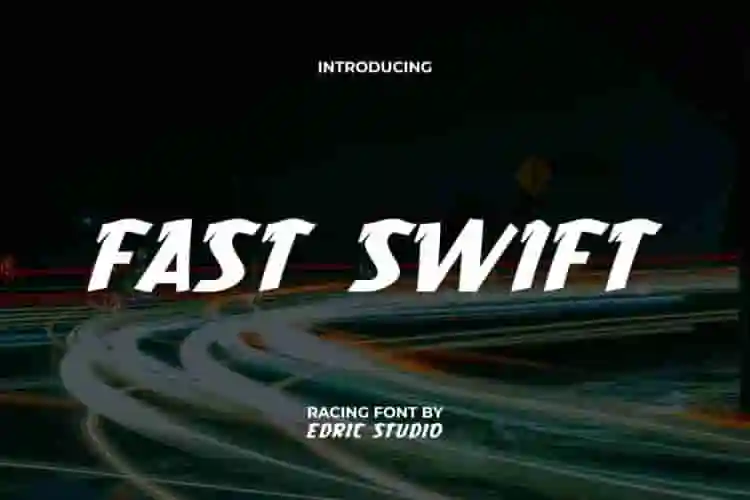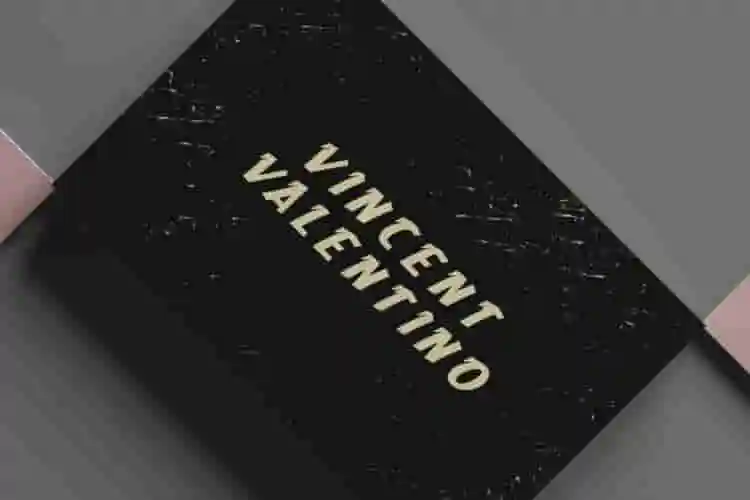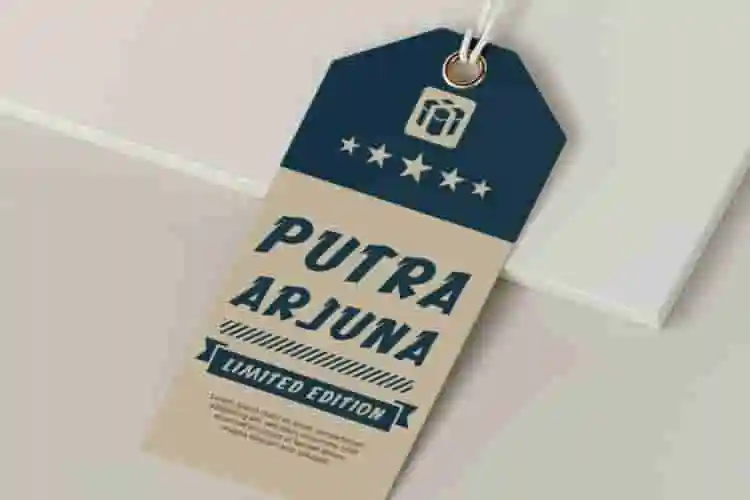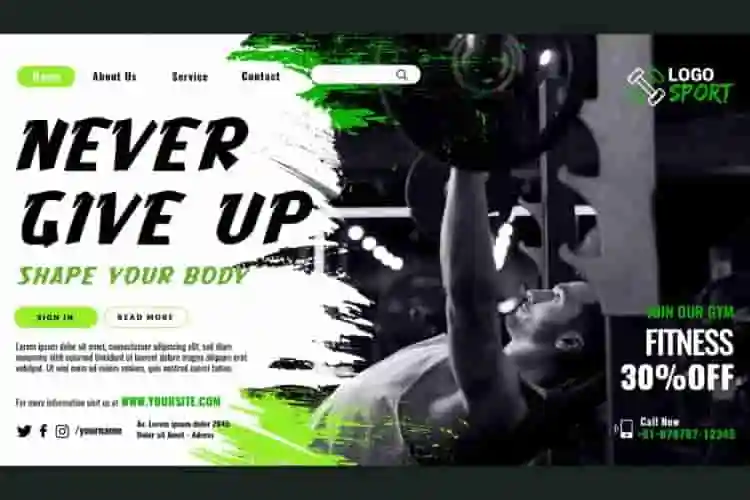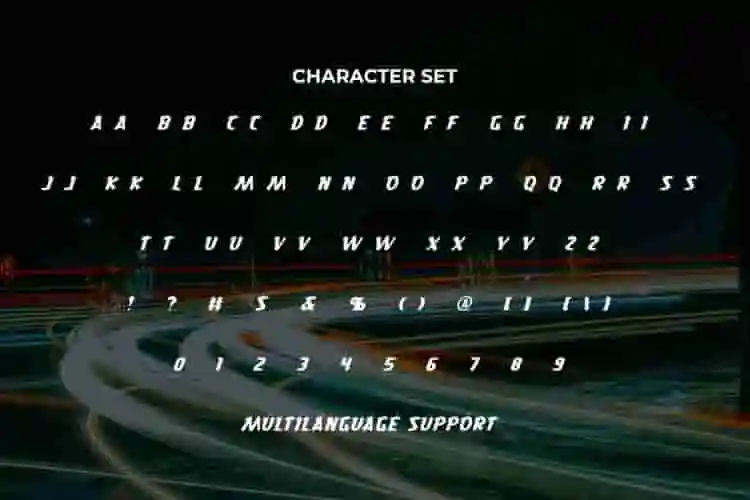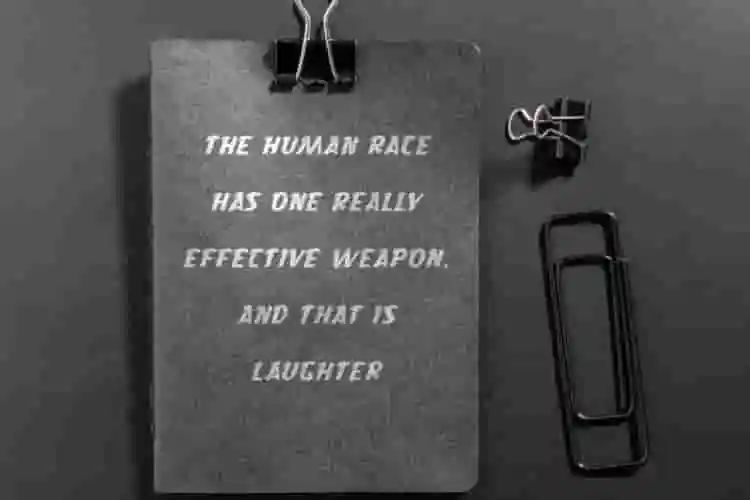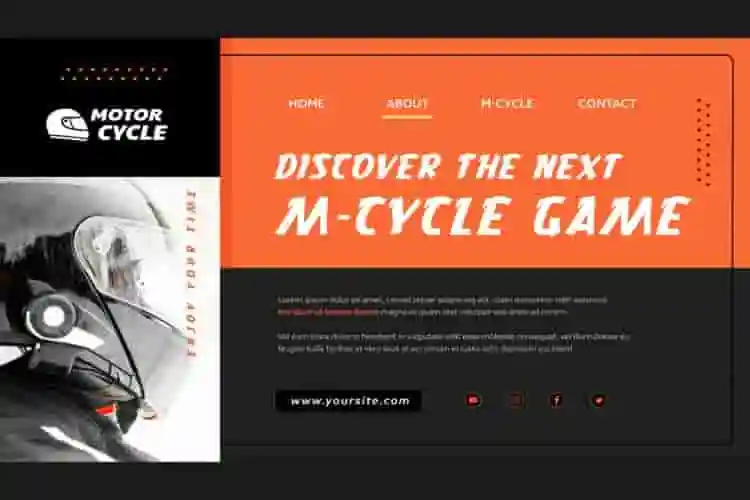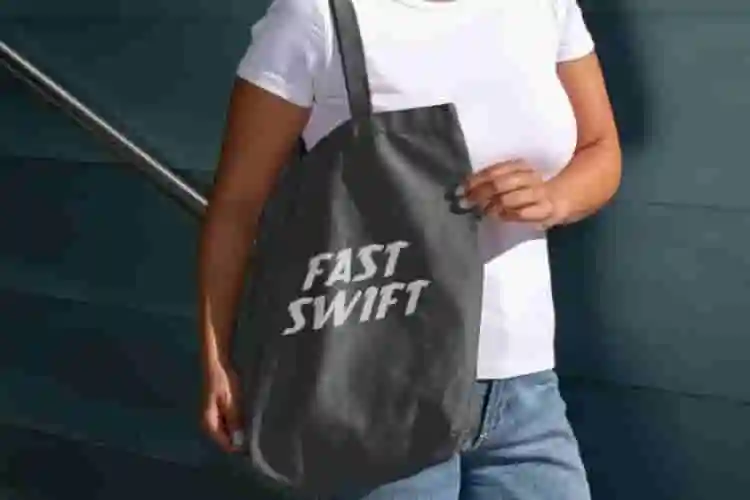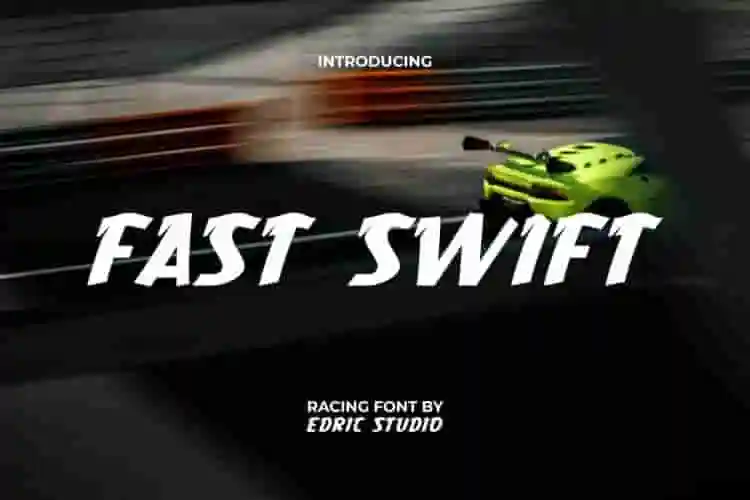
Fast Swift Font is a perky racing display font inspired by modern bold themes with a touch of italics that maintains simplicity and unique shapes at the top of each font. This makes it a fast and powerful looking letter. It’s perfect for banner, brand logo, blogs, cards design, headers, headline, labels, magazine covers, poster, print materials, quotes, screen print, stationery, sticker, tags, website, and many more.
Fast Swift Font includes a complete set of ALL CAPS for upper and lower case letters, Numbers, Punctuation and Symbols. This font is dynamic and sporty, designed for those who crave the action of speed and power. The letters are carefully crafted to embody the essence of automotive and fitness aspects. Perfect for use in your projects related to automotive, clothing brand, graphic design, gym, racing game, sports events, and other creative project.
Whether you’re designing for a racing brand, activewear label, tech product, energy drink, or esports team, Fast Swift Display Font delivers bold visuals with a futuristic edge. It’s the perfect display font to communicate speed, strength, and next-level performance.